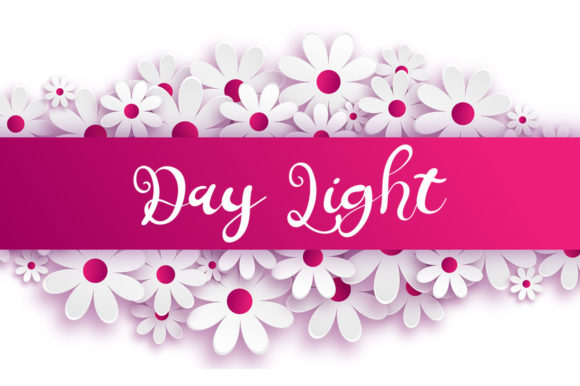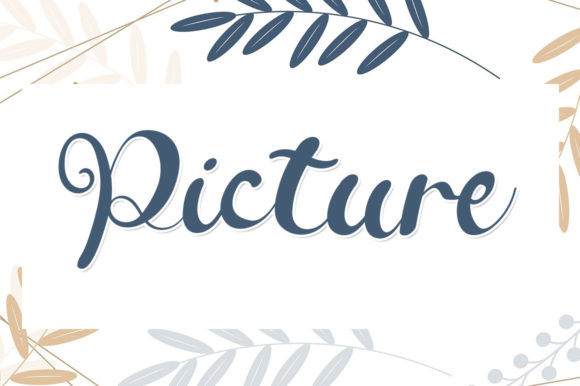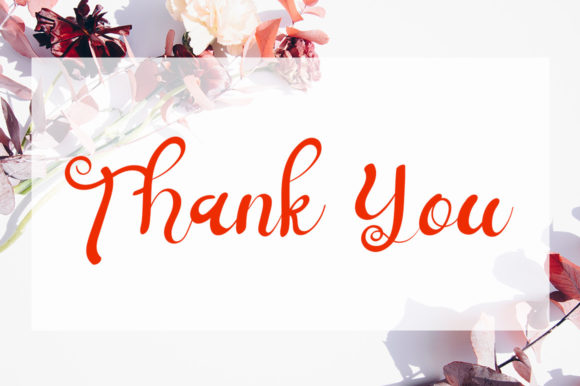
Introduction to Queen Love Font
As designers, we’ve all been there – staring at a blank canvas, searching for that perfect font to bring our creative vision to life. For me, it was a project to design a wedding invitation for a close friend. I spent hours browsing through fonts, trying to find the perfect combination of elegance and sweetness. That’s when I stumbled upon the Queen Love Font – a beautiful script font that perfectly captured the essence of love and romance.
With its fresh, clean, and elegant design, the Queen Love Font is a valuable resource for designers looking to add a touch of sophistication to their creative projects. Whether you’re working on a free download project or a high-end design, this font is sure to impress. Plus, its transparent background makes it easy to customize and use in a variety of design settings.
As a design resource, the Queen Love Font is a must-have for anyone looking to elevate their designs with a touch of elegance and sweetness. So, let’s dive in and explore the world of Queen Love Font and discover why it’s a top choice among designers.
Key Features of Queen Love Font
- High-quality design: Queen Love Font is designed with precision and care, ensuring a professional look for any creative project.
- Transparent background: This font features a transparent background, making it ideal for use on images, videos, or other design elements.
- High-resolution design: With a resolution of 300 DPI, Queen Love Font is perfect for use in high-quality designs, such as logos, posters, and business cards.
- Unique script style: Queen Love Font features a unique script style, making it perfect for adding a touch of elegance and sophistication to any creative project.
- Large character set: Queen Love Font includes a large character set, making it suitable for use in a variety of languages and applications.
Honest Review: Queen Love Font
As a designer, I’m always on the lookout for high-quality fonts to elevate my creative projects. The Queen Love Font caught my eye, and I was excited to give it a try. Here’s my honest review.
- ✨ The Queen Love Font is a beautifully designed font with a unique, elegant style that’s perfect for feminine and romantic projects.
- ✨ The font includes a transparent background, making it easy to customize and integrate into any design project.
- ✨ The font is available in multiple weights and styles, giving designers plenty of options for creative expression.
- ⚠️ The font is not suitable for bold or edgy projects, as its delicate style may not be enough to make an impact.
- ⚠️ The font may not be ideal for use in small sizes, as its intricate details may get lost.
Overall, I’m impressed with the Queen Love Font. It’s a great addition to any designer’s toolkit, and its high-quality design makes it a valuable resource for any creative project. Whether you’re working on a wedding invitation, a feminine blog design, or a romantic book cover, this font is sure to add a touch of elegance and sophistication.
Tips for Getting the Most Out of Queen Love Font
Use Queen Love Font as a design resource for creative projects, such as invitations, posters, and social media graphics. Experiment with different font sizes, colors, and styles to add visual interest to your designs.
Queen Love Font is perfect for wedding invitations, Valentine’s Day cards, and other romantic-themed designs. It’s also great for branding and logo designs that require a touch of elegance and sophistication.